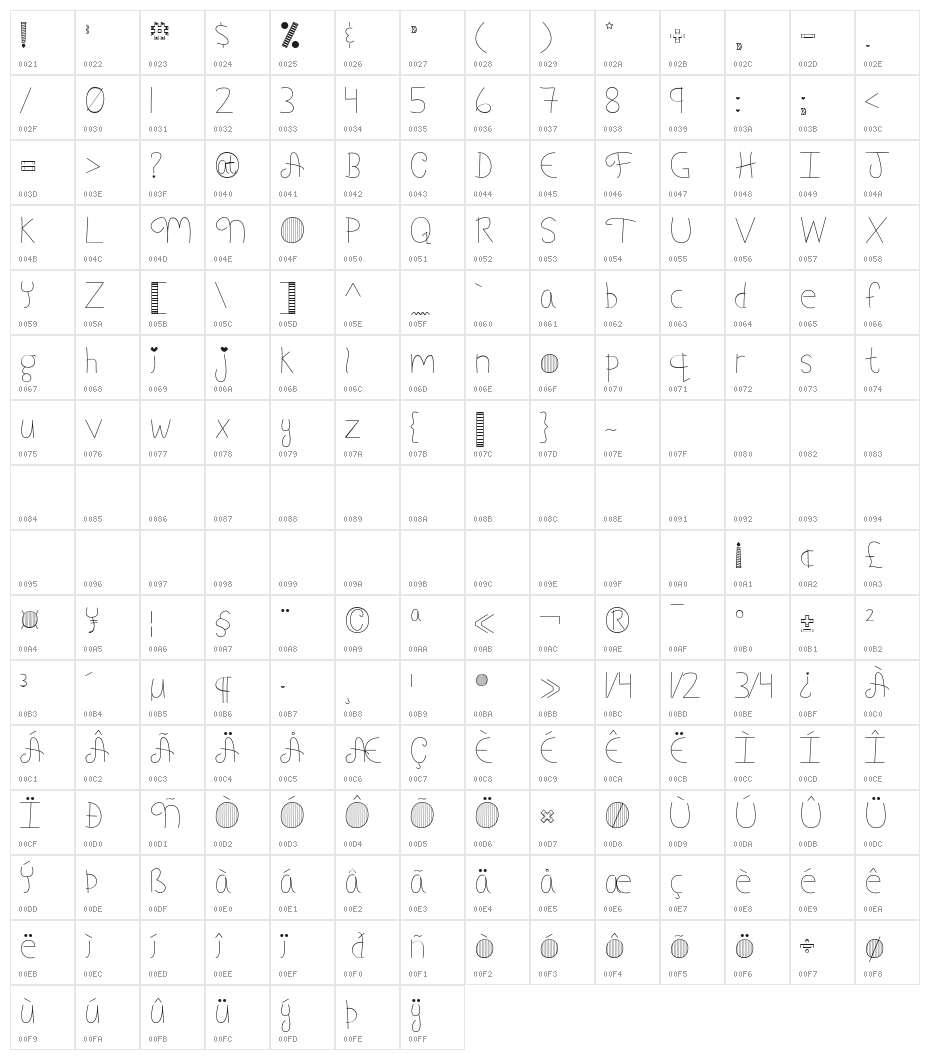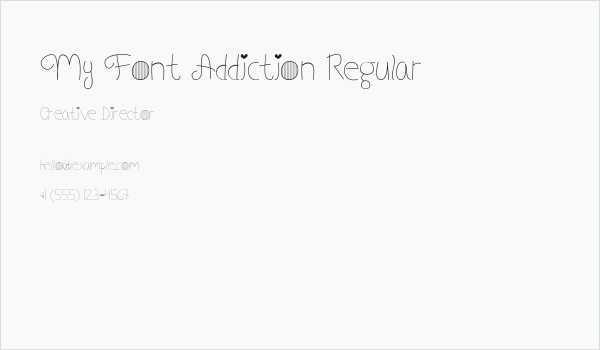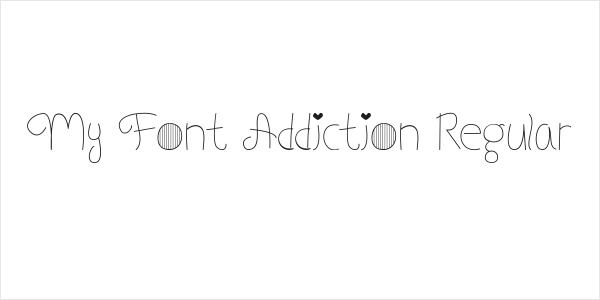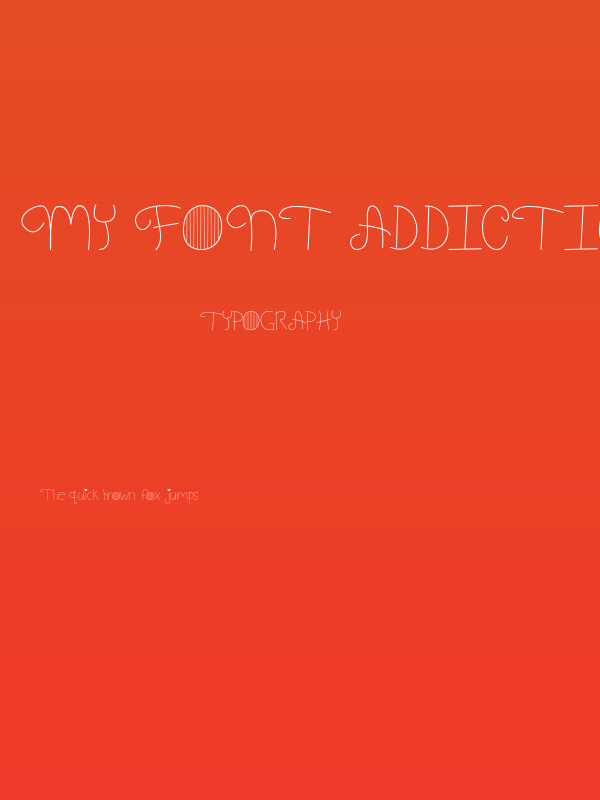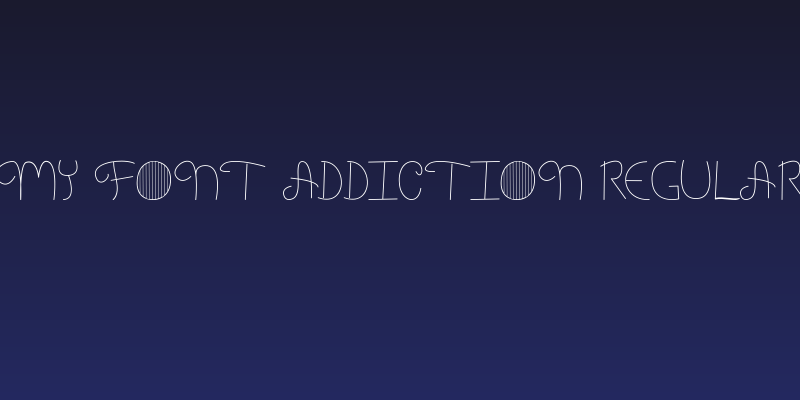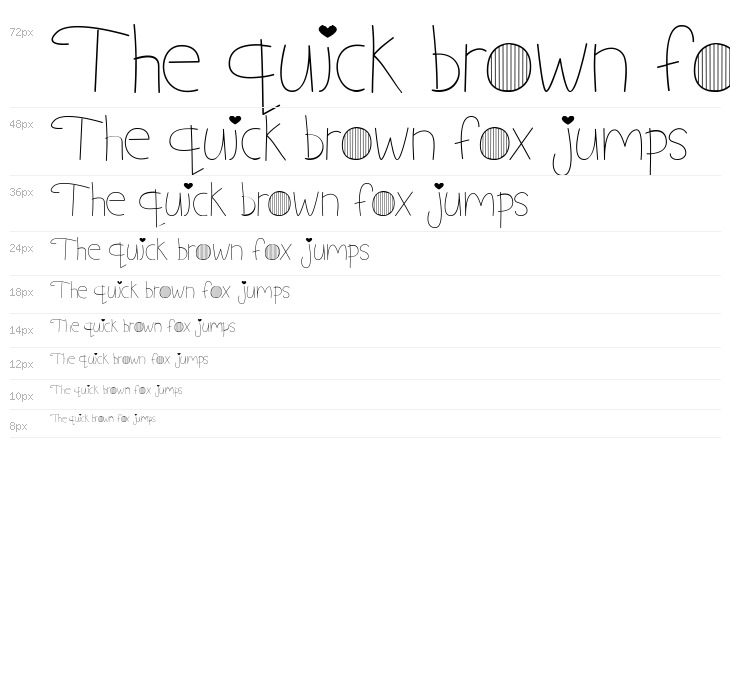
My Font Addiction Regular Font
My Font Addiction Regular Description
This font features a playful and whimsical design, characterized by its thin, flowing lines and unique character shapes. The uppercase letters are tall and slightly curved, giving them a lighthearted appearance. The lowercase letters maintain a consistent style, with some characters incorporating charming embellishments, such as hearts on the 'i' and 'j'. The numerals are distinct and easy to read, while the special characters add a touch of creativity with their varied designs. Overall, this font exudes a sense of fun and creativity, making it ideal for projects that require a personal and artistic touch.
| Overall Style | Whimsical |
| Proposed Projects | Ideal for greeting cards, children's books, playful branding, and creative invitations. |